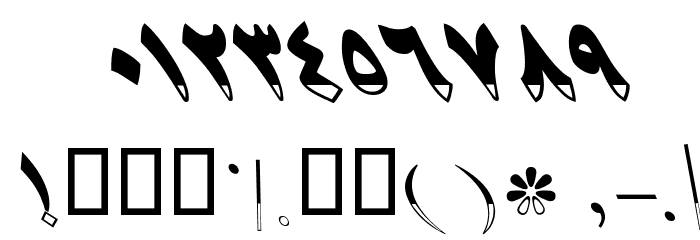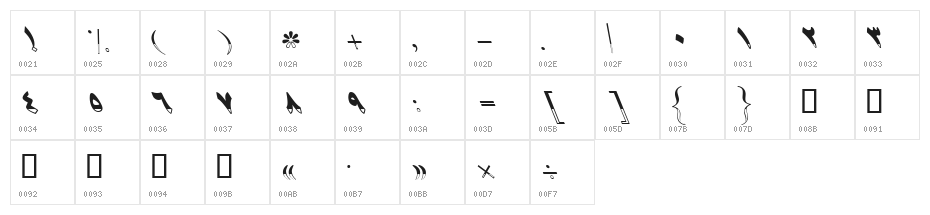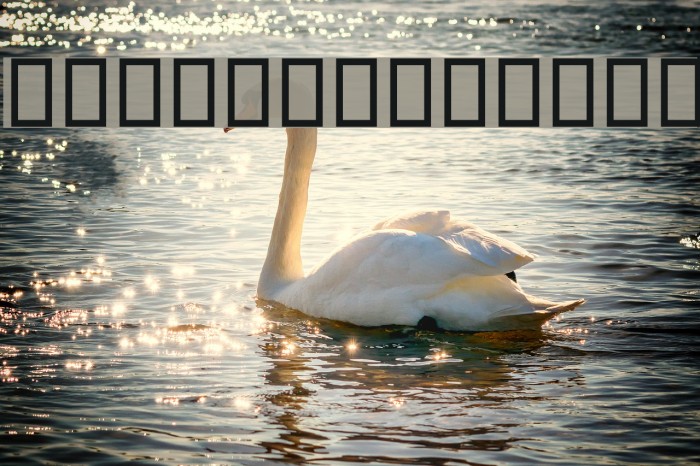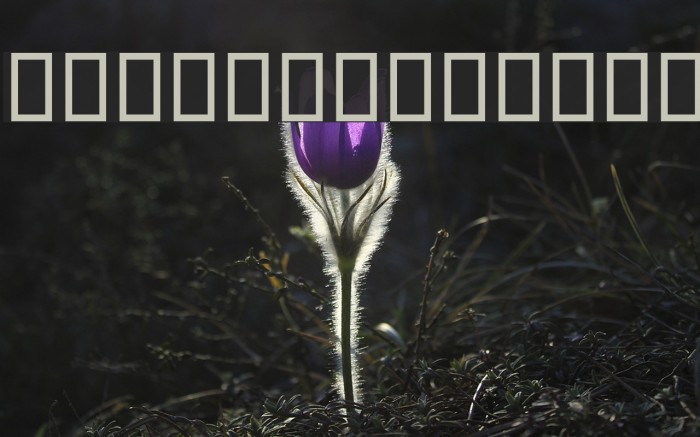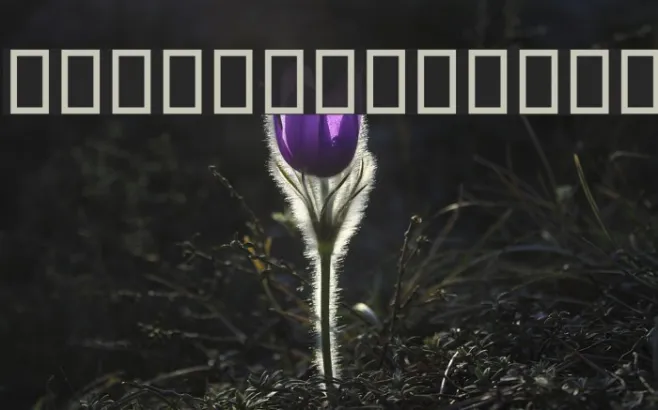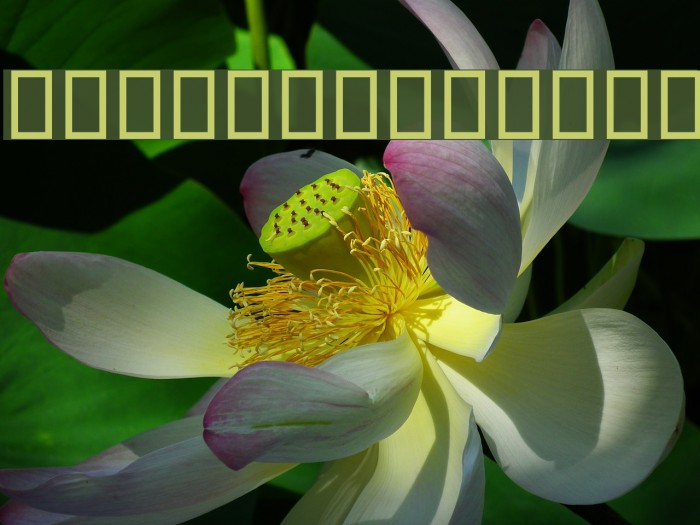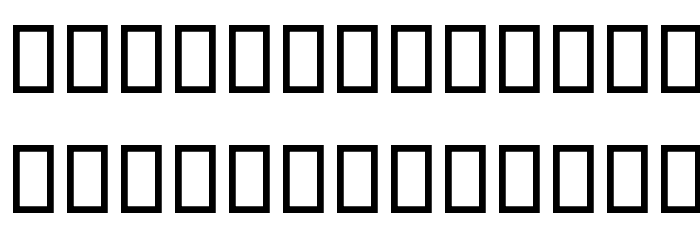
Sahar B&W Font
Sahar B&W Description
This font features a unique and artistic design, characterized by its bold and dynamic strokes. The numbers are presented in an elegant, flowing script style, which adds a touch of sophistication and creativity. The overall appearance is both modern and artistic, making it suitable for projects that require a distinctive and eye-catching typeface. The special characters, such as punctuation marks, are designed with a similar flair, enhancing the font's cohesive look.
| Proposed Projects | Ideal for creative projects such as branding, invitations, and artistic posters. |